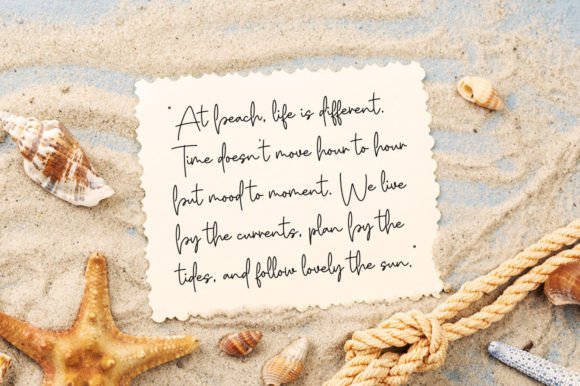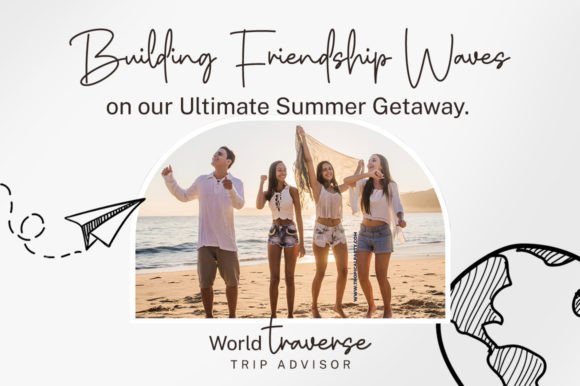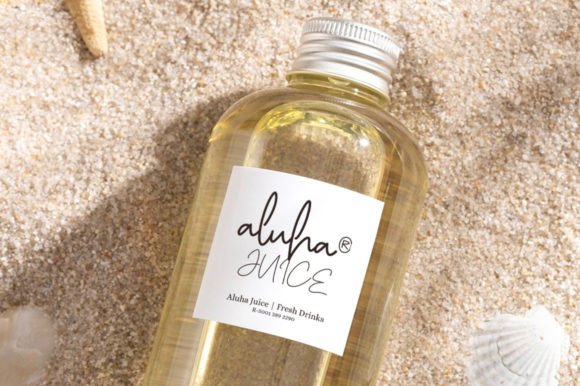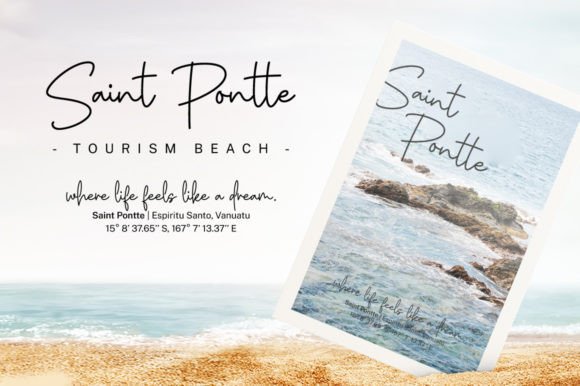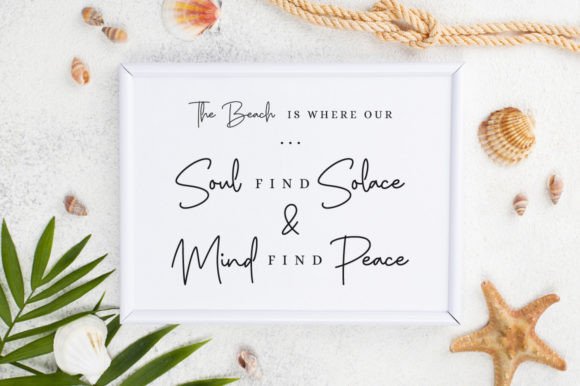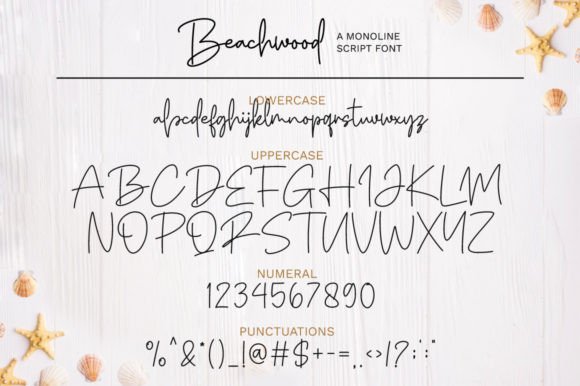
The Timeless Charm of Beachwood Font: A Designer’s Delight
I’ll never forget the time I was working on a branding project for a beachside resort, struggling to find the perfect font that captured the essence of the ocean and warmth of the sun. My client wanted something that felt both luxurious and approachable, but I was coming up blank. That’s when I stumbled upon Beachwood Font, and it instantly became the star of the show. In this article, I’ll share my love for this lovely and timeless handwritten font, its features, and how to make the most of it in your designs.
- ✅ Elegant, flowing script that’s perfect for creating eye-catching logos, branding, and quotes
- ✅ Versatile and adaptable to various design styles and industries
- ✅ Beautifully crafted with attention to detail and a clear focus on aesthetics
- ⚠️ Some users may find the font a tad too ornate for very minimalist designs
- ⚠️ Limited availability of condensed or extended versions, which might limit its use in certain layouts
- Experiment with OpenType features like swashes and ligatures to add a touch of elegance to your design.
- Explore the OpenType panel to access stylistic alternates, glyphs, and other advanced typographic features.
Beachwood Font was crafted with love and care by a talented type designer who drew inspiration from the beauty of handwritten scripts and the serenity of the ocean. The designer’s goal was to create a font that would evoke feelings of warmth, comfort, and elegance, perfect for designs that require a touch of sophistication.
| What makes Beachwood Font unique? | Beachwood Font stands out with its elegant, flowing script and highly legible design, making it perfect for creating eye-catching logos, branding, and quotes. |
| Is Beachwood Font suitable for body text? | While Beachwood Font is beautiful, it’s best suited for headings and titles. For body text, you may want to choose a more traditional font for better readability. |